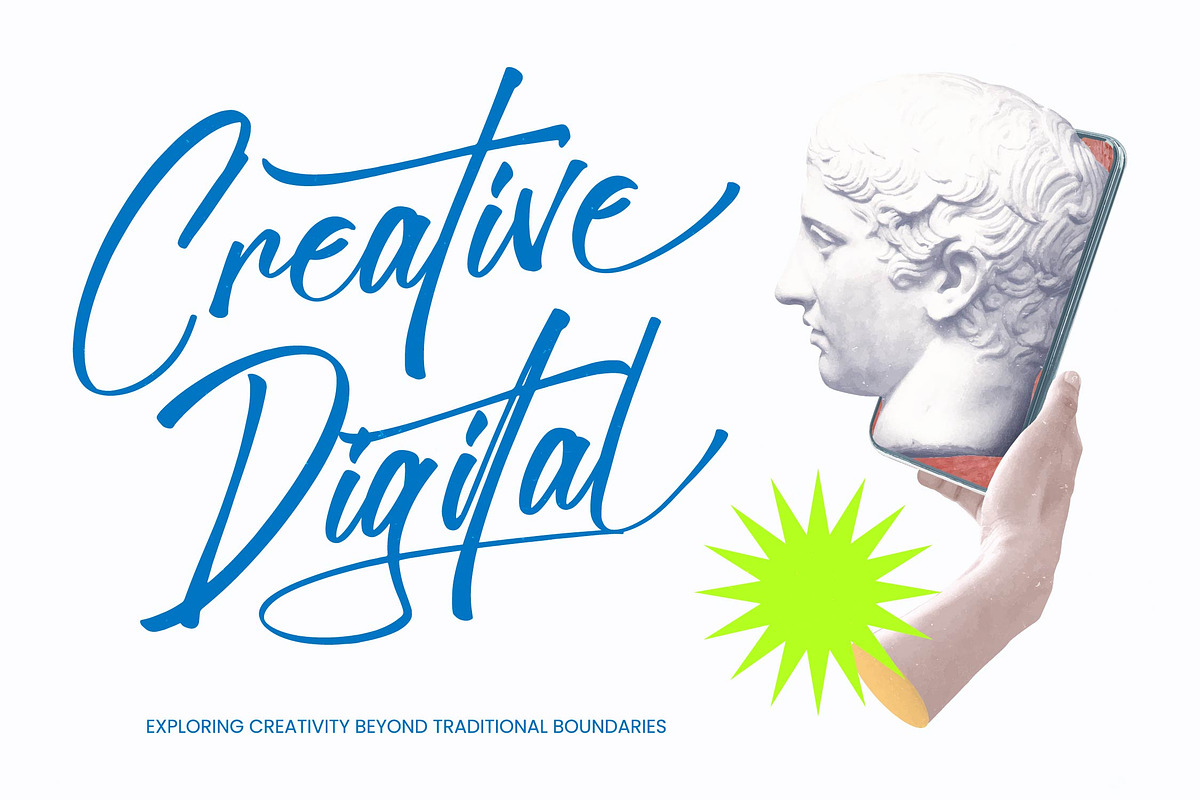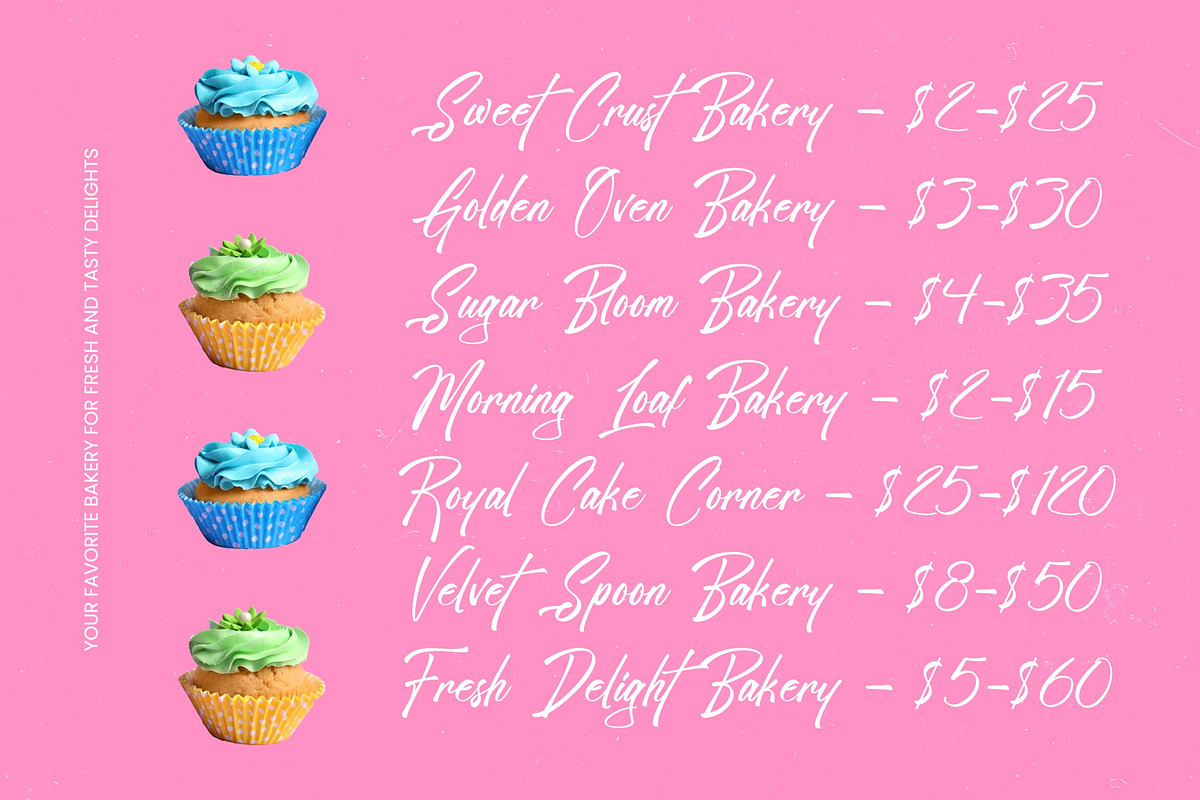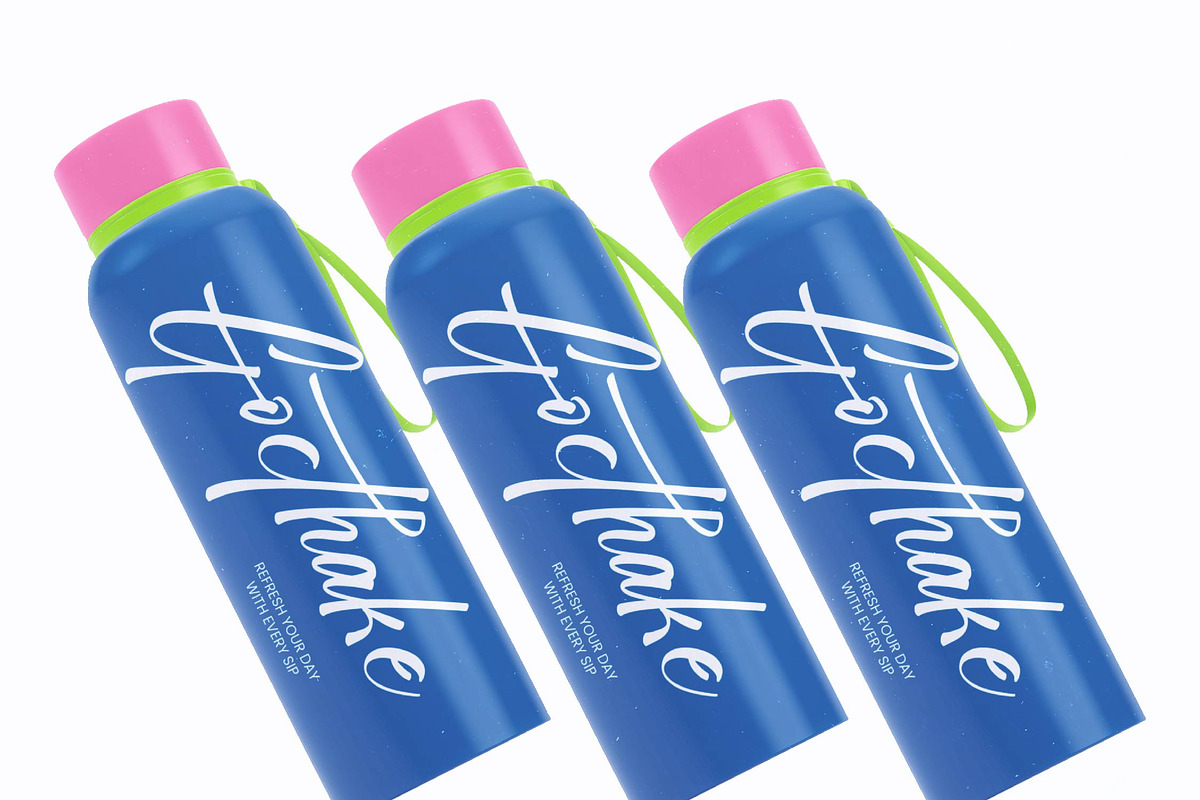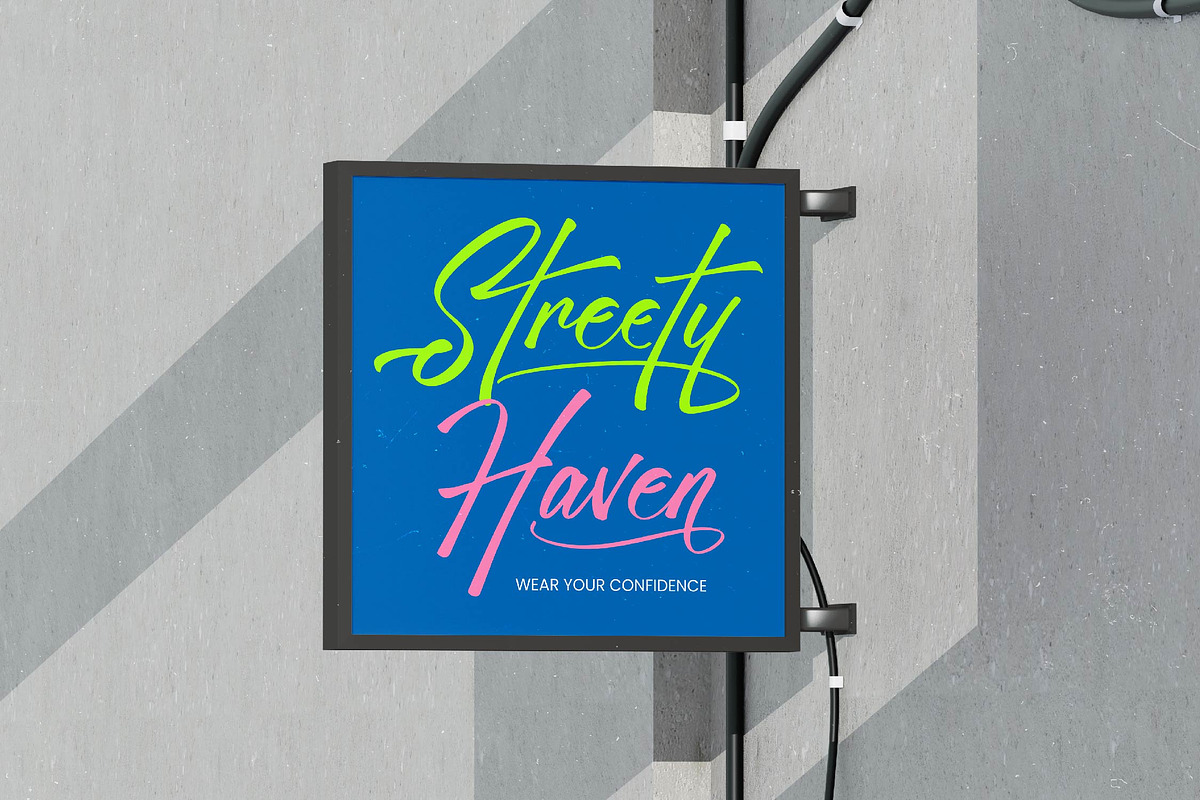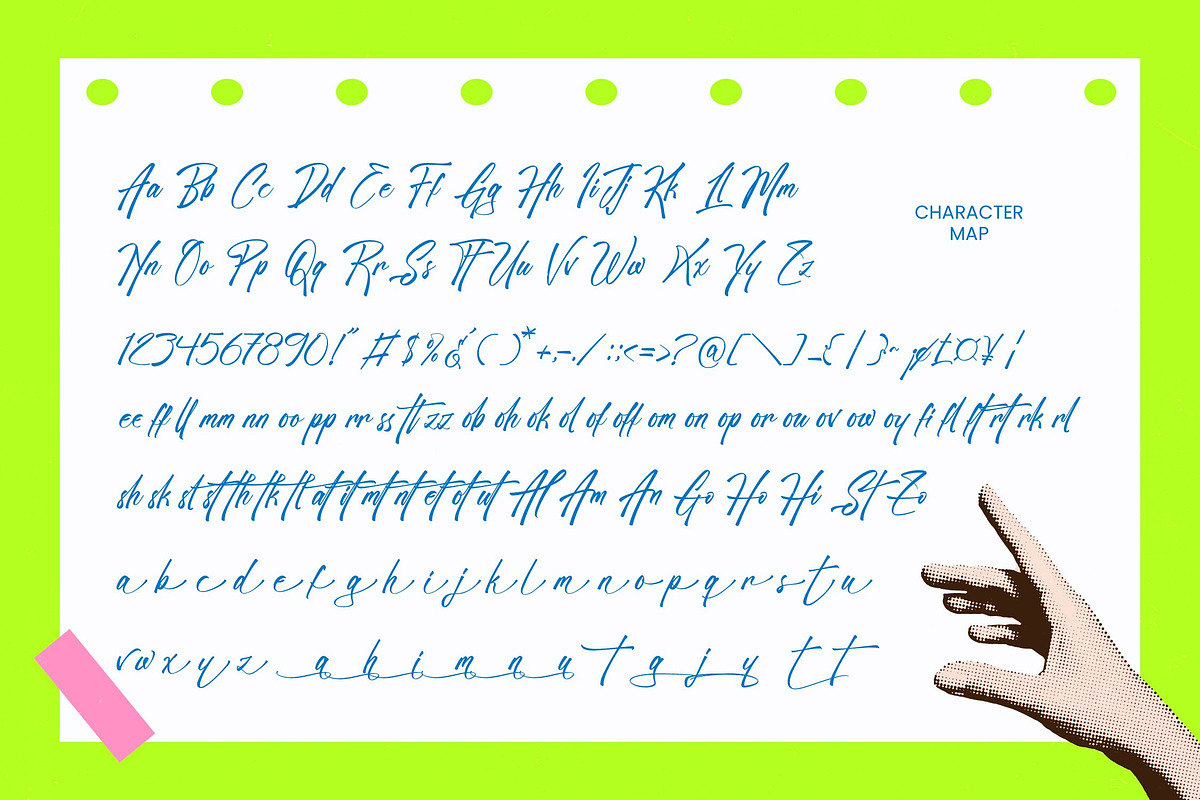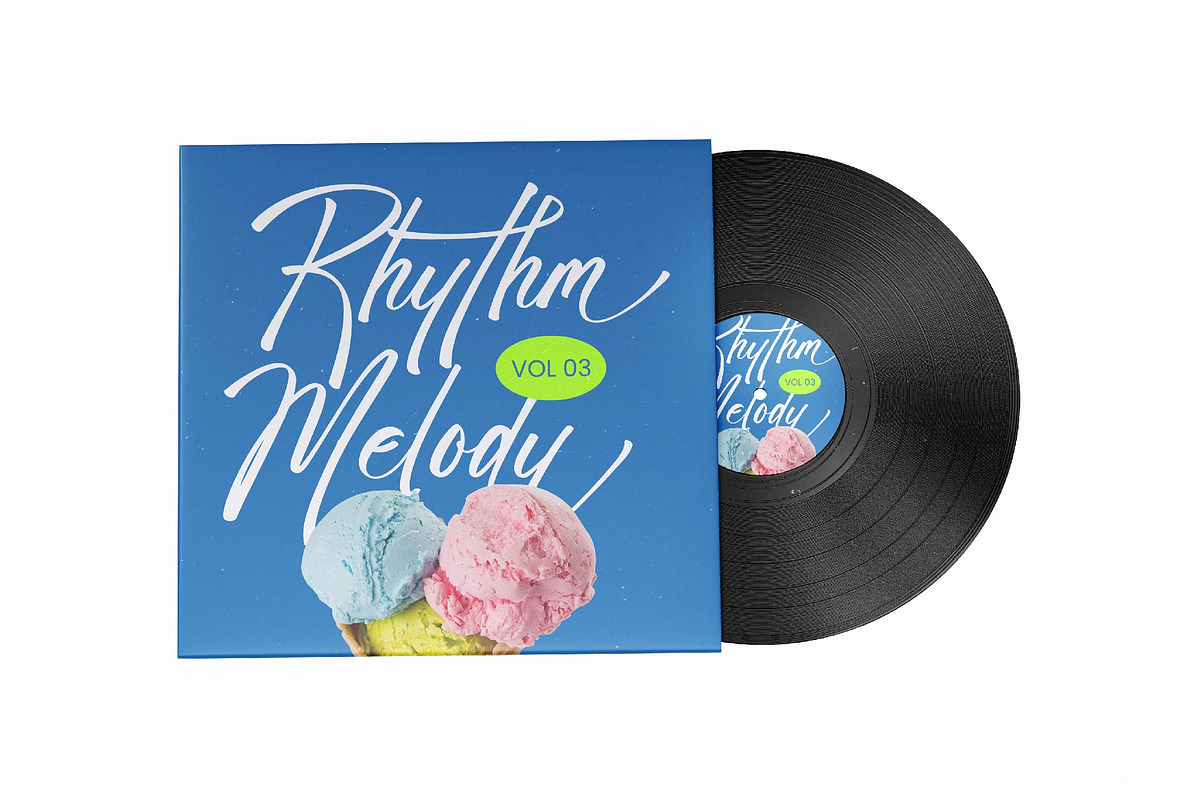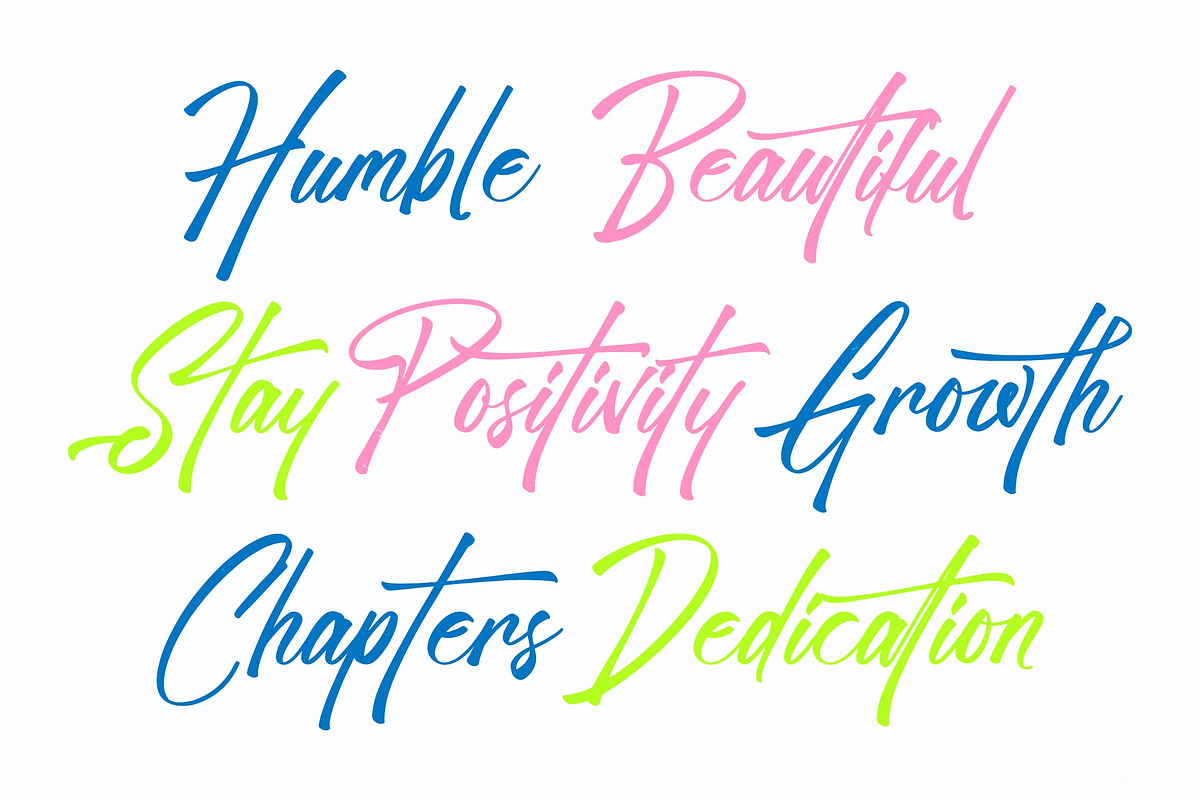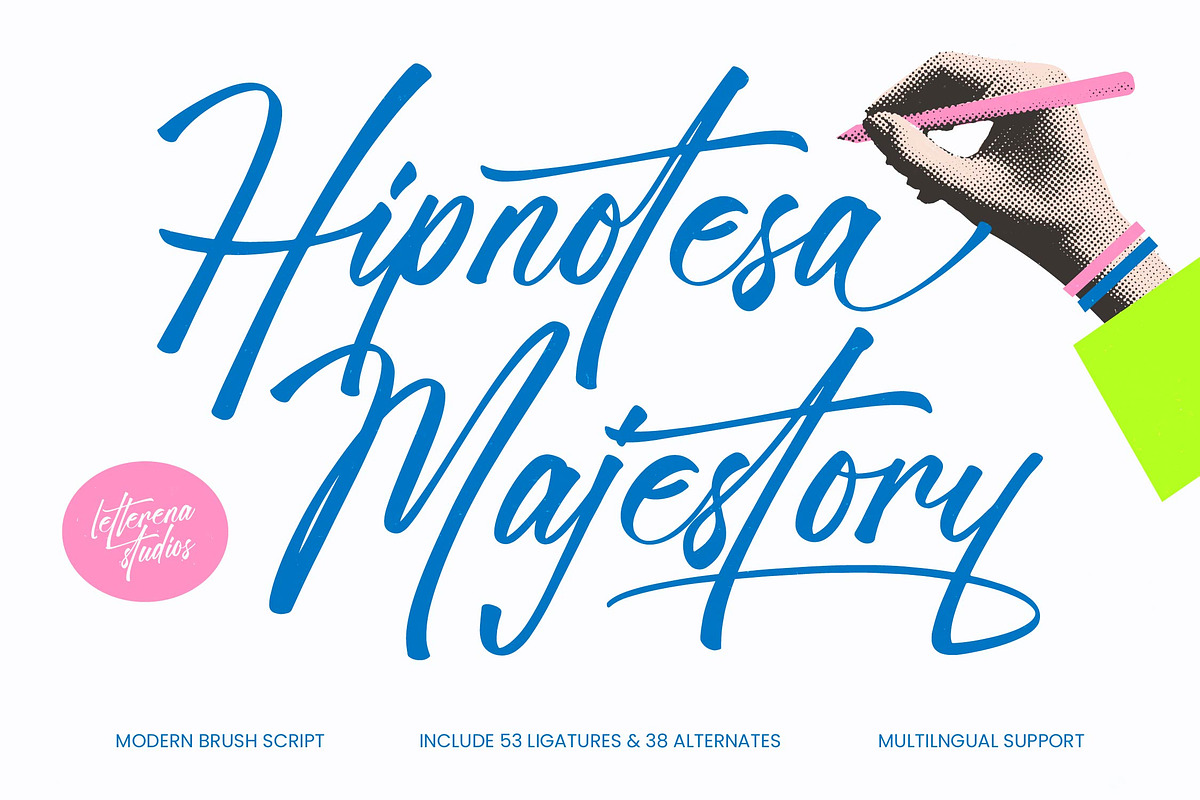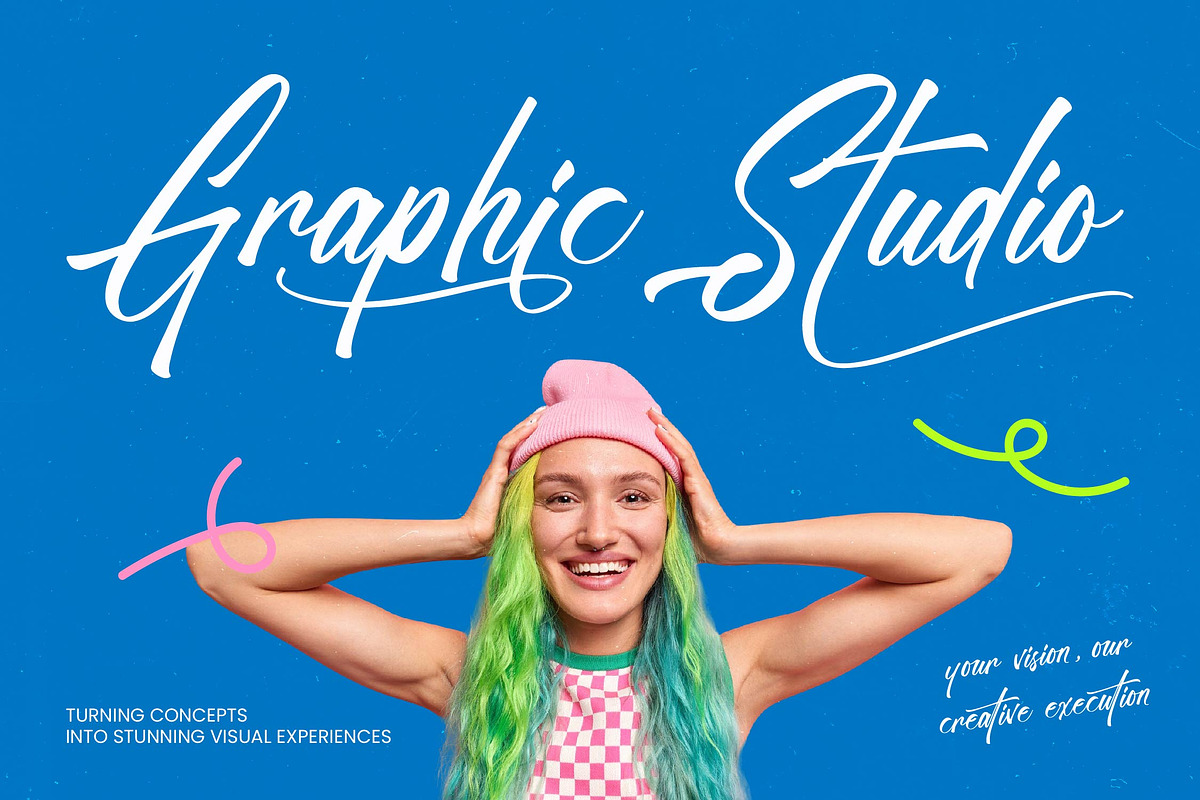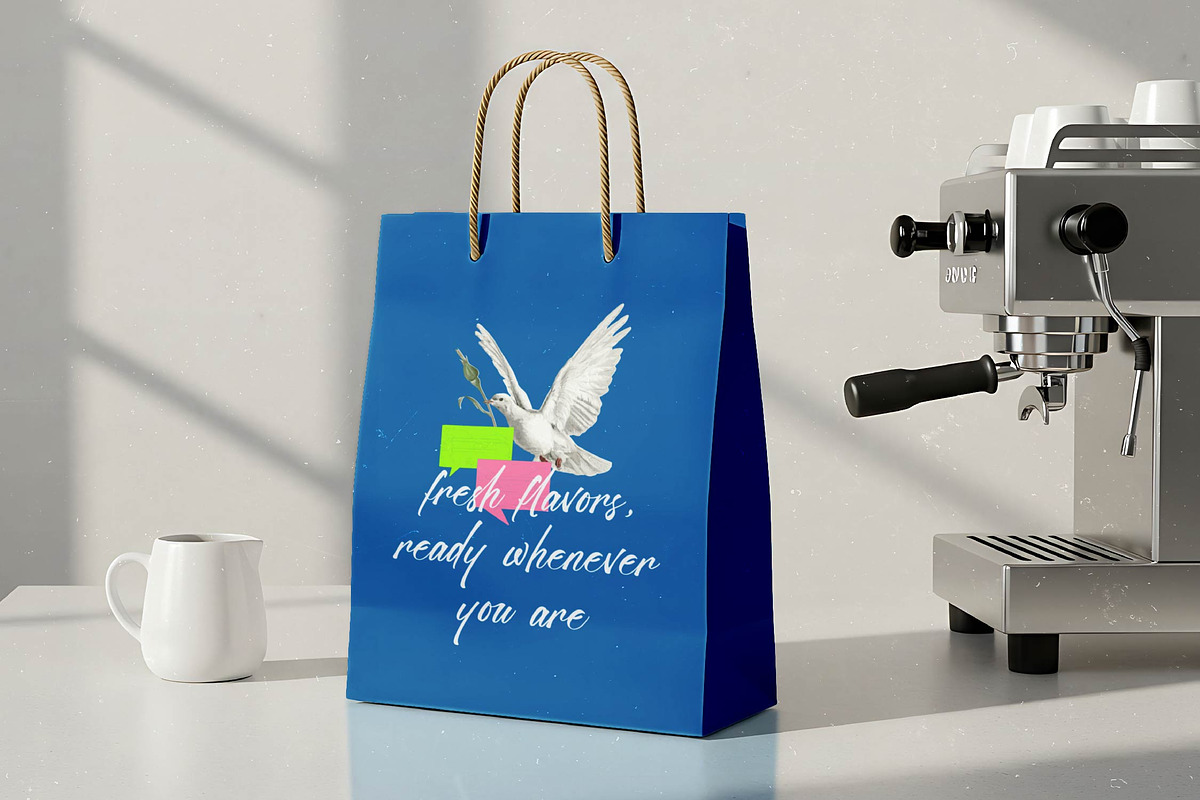
Hipnotesa Majestory Modern Brush
Hipnotesa Majestory - Modern Brush Script
Elevate your creative vision with a typeface that embodies raw energy and sophisticated flair. Hipnotesa Majestory - Modern Brush Script is a masterpiece of contemporary calligraphy, offering a dynamic aesthetic that commands attention instantly. This high-impact typeface features fluid, hand-drawn strokes that bring an authentic, artistic touch to any digital or print canvas. By blending organic textures with a modern structure, Hipnotesa Majestory - Modern Brush Script ensures your message is delivered with unparalleled visual rhythm and personality.
Unlock limitless creative potential through a rich array of custom typographic features. Designed for maximum flexibility, Hipnotesa Majestory - Modern Brush Script includes an impressive library of 53 ligatures and 38 stylistic alternates. These professional-grade additions allow designers to create bespoke lettering that feels truly unique and custom-made. Whether you are aiming for a bold headline or a delicate signature, the versatility of Hipnotesa Majestory - Modern Brush Script provides the necessary tools to refine every detail of your composition.
Expand your brand’s reach across borders with a font built for the global stage. With its extensive multilingual support, Hipnotesa Majestory - Modern Brush Script adapts seamlessly across global markets, making it incredibly versatile for international projects. This comprehensive character set ensures that your brand identity remains consistent and powerful, regardless of the language or region. By choosing Hipnotesa Majestory - Modern Brush Script, you are investing in a future-proof asset that bridges the gap between local charm and global appeal.
Define your brand’s prestige with the perfect typographic choice for high-end applications. Hipnotesa Majestory - Modern Brush Script is the ideal solution for luxury branding, premium packaging, and editorial design. It is perfect for logo creation, fashion catalogs, and impactful social media graphics where a distinctive voice is paramount. From wedding invitations to lifestyle branding, Hipnotesa Majestory - Modern Brush Script delivers a sophisticated edge that elevates every project to a professional standard.